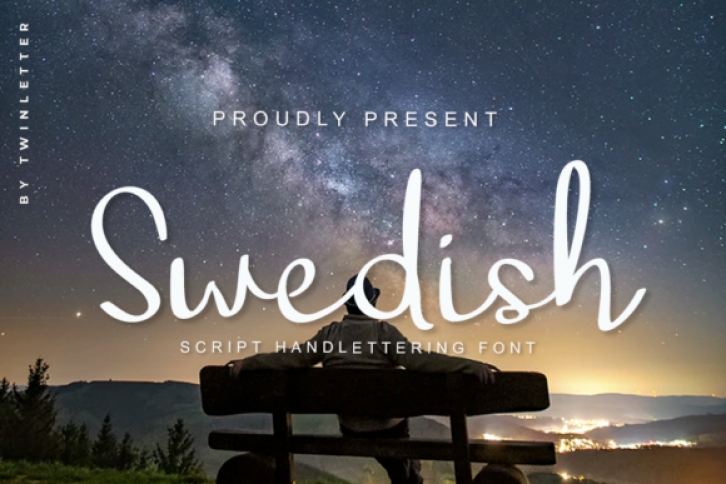
Swedish embodies fun, quirkiness and authenticity. This enchanting handwritten font will turn any creative idea into a true standout. Swedish is the perfect fit for all of your logos, branding, social media, and crafty DIY projects.